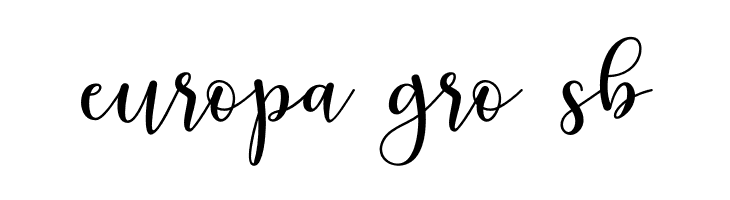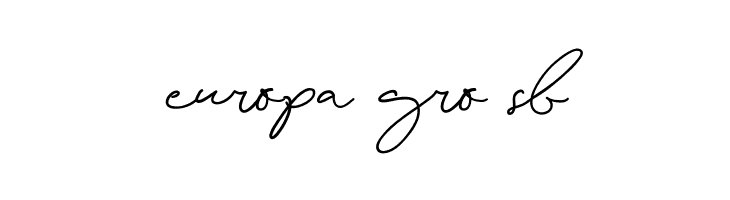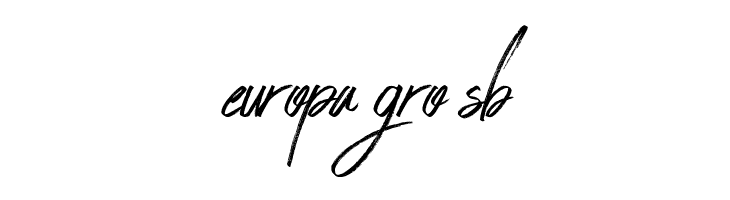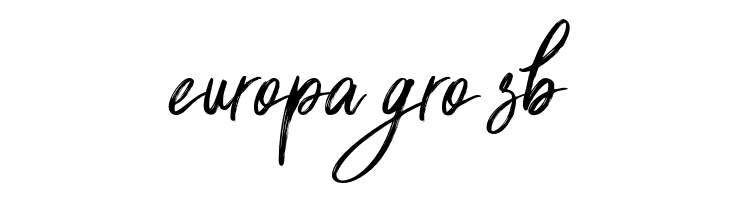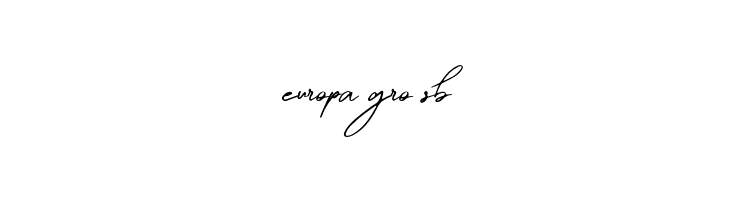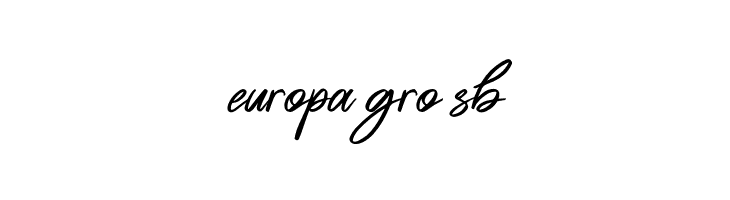
A bold, brush-style font with dynamic, handwritten characteristics.
A flowing, cursive font with elegant, sweeping strokes and a handwritten appearance.
A bold, flowing script font with a modern and elegant style.
A lively and elegant script font with fluid strokes and cohesive design.
A cursive, handwritten-style font with elegant, flowing characters.
A whimsical, cursive font with flowing, interconnected strokes.
A dynamic script font with elegant, flowing lines and cursive letterforms.
A dynamic and elegant script font with fluid strokes and artistic flair.
A graceful, cursive script font with flowing, connected characters and delicate strokes.
A cursive, handwritten-style font with elegant, flowing strokes.